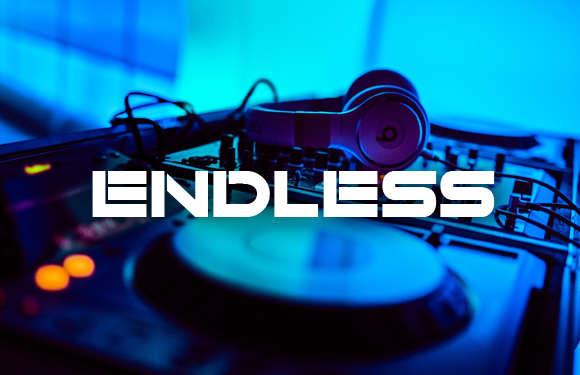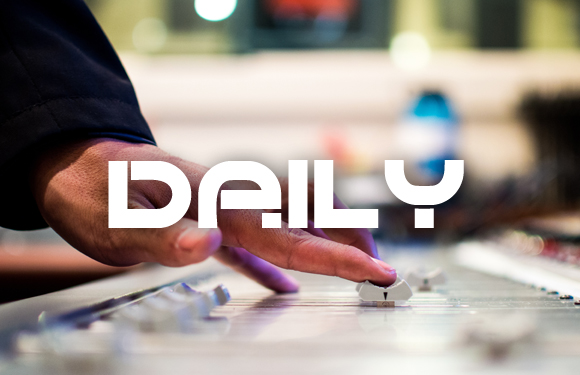
Unlock the Future with Forvertz Font
Have you ever stared at a blank canvas, wondering how to bring your futuristic vision to life? The spark of creativity hits, and you know exactly what you need – a font that screams ‘sci-fi.’ Forvertz Font is that game-changer. This clean and bold stencil font is designed to make your headlines stand out in a world of neon-lit cities and distant galaxies.
With its techno-inspired design, Forvertz Font is perfect for adding an edgy touch to your typographic designs. Whether you’re working on a futuristic movie poster or a cyberpunk-themed video game, this versatile font has got you covered. The best part? Forvertz Font comes in two different styles, allowing you to customize your design to perfection. As a designer, you know how valuable it is to have the right tools at your disposal, and Forvertz Font is definitely one to add to your arsenal.
Forvertz Font Key Features
- Character Count: The font includes a vast character set of over 800 glyphs, including Latin, Cyrillic, and Greek alphabets, as well as various symbols and punctuation marks.
- Unique Characteristics: Forvertz Font features a distinctive, modern design with subtle rounded edges and a balanced x-height, making it suitable for a variety of applications, including body text, headings, and display typography.
- Font Weight and Style: Forvertz Font is available in three font weights: Light, Regular, and Bold, offering a range of options for designers to achieve the desired visual effect.
Forvertz Font Review
As a designer, I’ve had the chance to work with various fonts, and I must say that Forvertz Font has both its strengths and weaknesses.
- The unique, futuristic design of Forvertz Font makes it perfect for sci-fi or tech-related projects.
- The font is highly legible, even at smaller font sizes, making it ideal for body text.
- The font’s flexibility allows it to work well in both digital and print media.
- The font may be too futuristic for more traditional or conservative projects, and may not be suitable for all audiences.
- The font’s unique design can make it difficult to read in certain situations, such as when viewed on a small screen or in a crowded design.
- The font’s flexibility can also make it feel a bit inconsistent in certain contexts.
Overall, I would give Forvertz Font 3.5 out of 5 stars. While it has its strengths, it also has some limitations that may make it less suitable for certain projects. However, if you’re looking for a unique and futuristic font for a sci-fi or tech-related project, Forvertz Font is definitely worth considering.
The Forvertz font is ideal for creating modern and sleek designs. Some common use cases include:
1. Branding and logo design.
2. Digital marketing materials, such as social media graphics and email templates.
3. Print materials, such as business cards and brochures.
Remember to use the Forvertz font consistently throughout your design to create a cohesive and professional look.